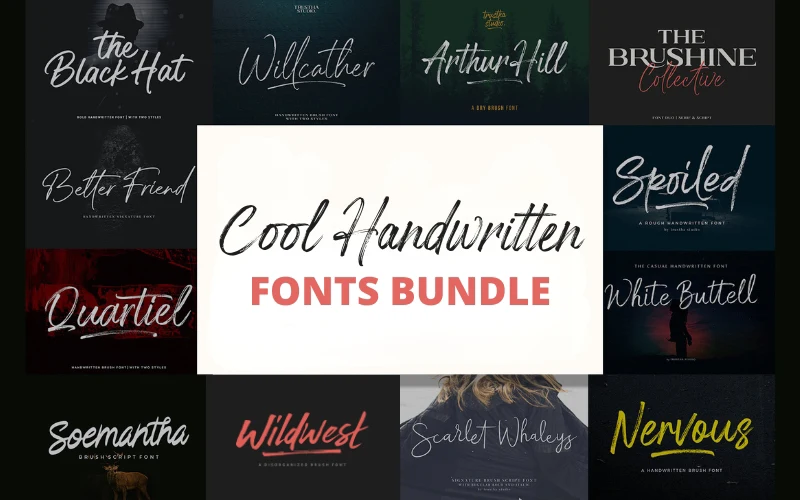
Cool Handwritten Fonts Bundle
This bundle is a collection of 31 stylish, handwritten fonts across 12 typefaces in OTF.
These fonts are specially crafted to bring a natural and expressive handwritten touch to your designs.
Arthur Hill Font
Better Friend Font
Black Hat Font
Brushine Font Family
Nervous Font
Quartiel Font
Scarlet Whaleys Font
Soemantha Font
Spoiled Font
White Buttell Font
Old Wildwest Font
Willcather Font
31 Cool Handwritten Fonts
12 Typefaces